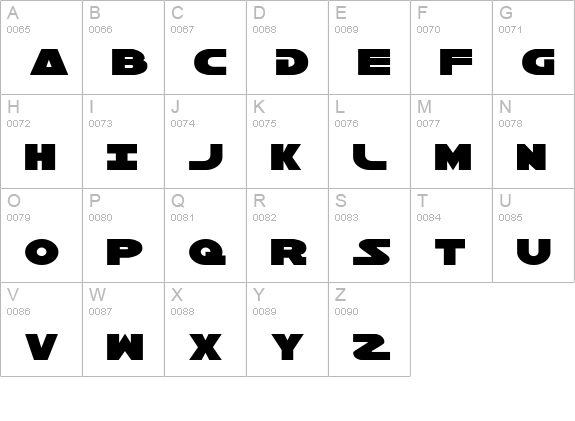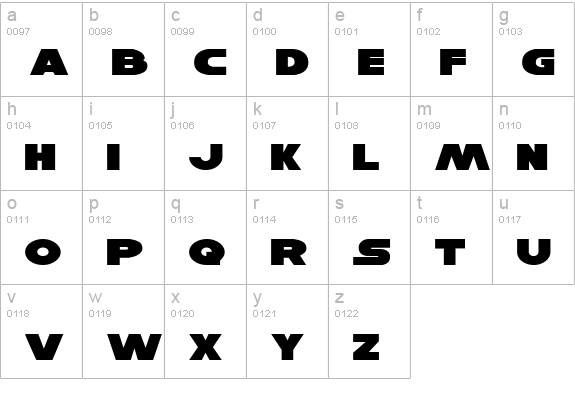
Han Solo Expanded Font Details
Han Solo Expanded is a distinctive, extended-width variant in the Han typeface family \xE2\x80\x94 well suited to design and typography projects.
Introducing the Han Solo Expanded font, a mesmerizing display typeface that will transport you to a galaxy far, far away. Inspired by the iconic hero from the Star Wars franchise, this font captures the essence of Han Solo's adventurous spirit and undeniable charisma. With its sleek and bold letterforms, Han Solo Expanded is perfect for adding a touch of rebellion and excitement to your designs. Whether you're creating movie posters, gaming graphics, or merchandise for die-hard fans, this font will make a powerful statement. What sets Han Solo Expanded apart is not only its striking aesthetic but also its versatility. It can be used for both headlines and body text, allowing you to create cohesive designs that are visually captivating and easy to read. The slightly expanded letterforms give your text a unique presence, making it stand out from the crowd. And the best part? Han Solo Expanded is available for free download at FontsMarket.com. That's right, you can now bring the spirit of Han Solo into your projects without breaking the bank. Simply head over to FontsMarket.com, and with just a few clicks, you can have this incredible font at your fingertips. Whether you're a professional designer or a Star Wars enthusiast looking to add a touch of the galaxy to your personal projects, Han Solo Expanded is the font for you. Don't miss out on this opportunity to create stunning designs that capture the essence of Han Solo's iconic character. Download Han Solo Expanded for free today at FontsMarket.com and embark on an adventure of creativity and imagination. May the force be with you!